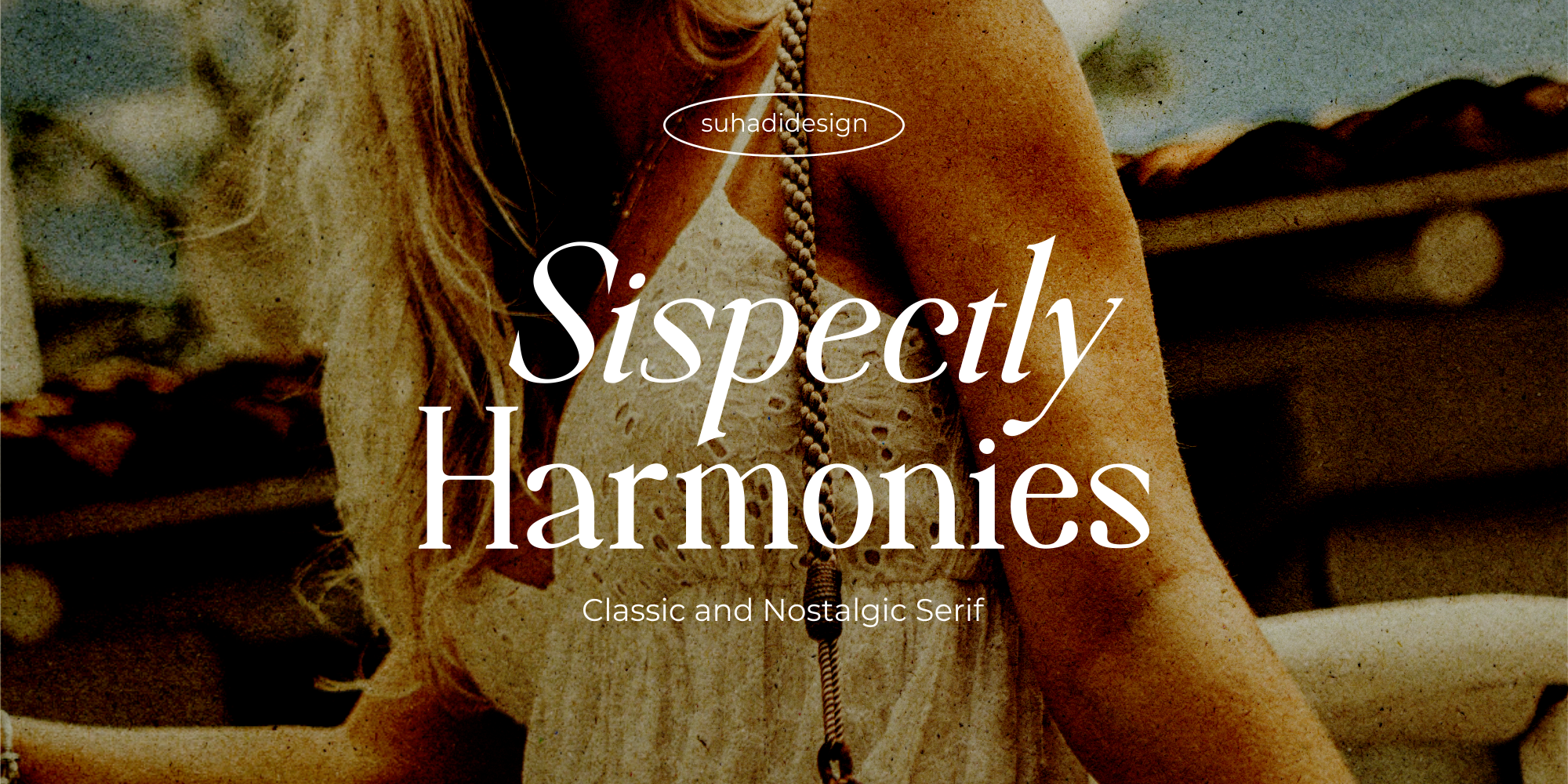
Sispectly Harmonies Italic Font is perfect for classical music concert programs, poetry book covers, elegant wedding invitations, luxury perfume branding, art gallery exhibition catalogs, romantic greeting cards, sophisticated wine labels, and melodic advertising campaigns.
Sispectly Harmonies Italic Font is exciting because it gracefully captures the flowing rhythm of musical composition with its elegant slanted letterforms that dance across the page like melodic notes, creating a harmonious visual symphony that perfectly balances artistic expression with readable elegance, making it ideal for projects requiring poetic sophistication and musical grace.
The Sispectly Harmonies Italic Font family includes multiple weights and styles such as Regular Italic, Bold Italic, Light Italic, Condensed Italic, and Extended Italic versions, providing designers with comprehensive options for creating lyrical typographic systems that maintain the musical flow across various artistic and cultural applications.
Sispectly Harmonies Italic Font Free Download represents a masterful fusion of typographic artistry and musical inspiration, offering designers access to a typeface that transforms ordinary text into visual poetry. This exceptional font embodies the ethereal beauty of classical compositions and the graceful movement of orchestral performances, creating a powerful tool for brands and projects seeking to communicate artistic refinement and cultural sophistication.
The font's elegantly slanted letterforms feature flowing curves and rhythmic proportions that mirror the natural cadence found in musical phrasing and poetic verse. Each character has been meticulously crafted to work harmoniously within compositions, ensuring that Sispectly Harmonies Italic Font delivers optimal readability while preserving the lyrical quality that makes it so effective in artistic and cultural applications.
Professional designers working with cultural institutions and luxury brands appreciate this font's ability to convey artistic excellence and emotional depth. The typeface excels in applications where aesthetic beauty meets meaningful communication, from classical music promotions to literary publications, from luxury product branding to cultural event marketing.
The comprehensive character set includes extensive multilingual support and decorative glyphs, making it suitable for international artistic projects while preserving its distinctive musical character. Whether used for elegant headlines, poetic quotations, or sophisticated branding elements, this font delivers consistent visual harmony that enhances emotional connection and brand recognition.
Creative professionals in the arts and culture sector have embraced Sispectly Harmonies Italic Font for its unique ability to transform typography into visual music. Its versatility allows it to adapt seamlessly to both traditional and contemporary design contexts while maintaining its lyrical elegance and artistic integrity.
This remarkable typeface has become an essential resource for designers who understand that typography can serve as a bridge between visual and auditory art forms, allowing audiences to experience the rhythm and harmony typically reserved for musical compositions.